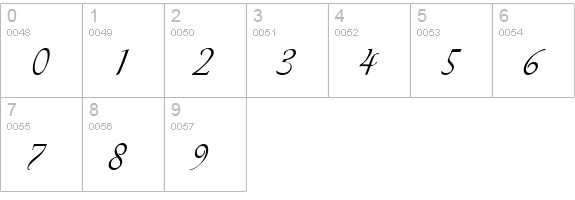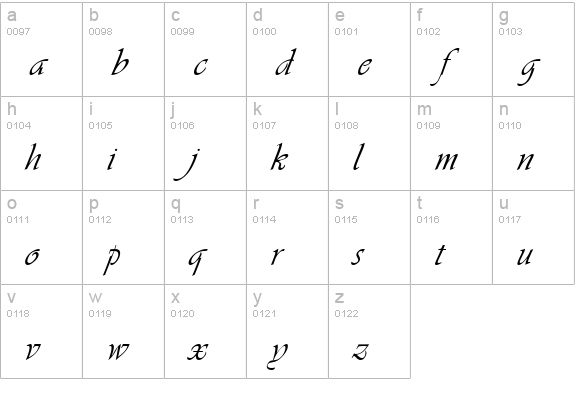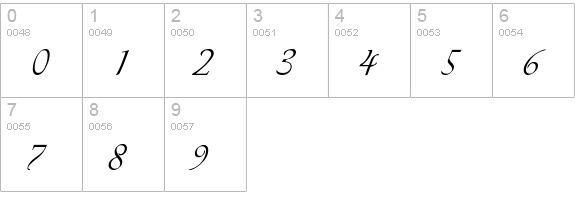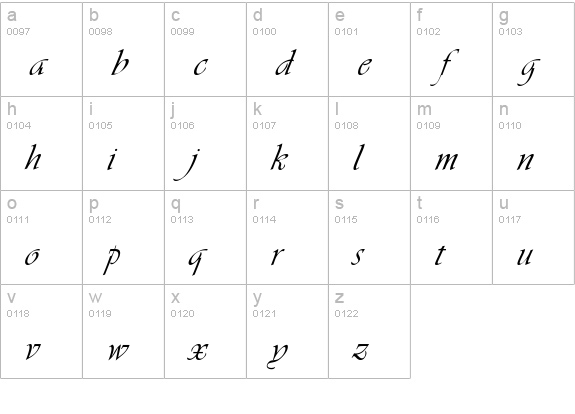
Vivaldi Italic is a distinctive, italic variant in the Vivaldi typeface family \xE2\x80\x94 well suited to design and typography projects.
Vivaldi Italic font is a masterpiece that effortlessly combines elegance and sophistication. With its graceful and flowing curves, this font exudes a sense of refinement and beauty. Whether used for headings, invitations, or any other design project, Vivaldi Italic adds a touch of class and uniqueness. One of the best things about Vivaldi Italic is that it is available for free. Yes, you read that right - this stunning font can be downloaded at no cost! It is freely available on FontsMarket.com, a reputable website known for its extensive collection of high-quality fonts. By offering Vivaldi Italic for free, the creators have made it accessible to anyone who wants to add a touch of elegance to their designs. Whether you are a professional designer or a hobbyist, this font is a valuable addition to your font library. The versatility of Vivaldi Italic is another standout feature. It is suitable for a wide range of design projects, from formal invitations to luxury branding. Its italicized style adds a sense of movement and flair, making it perfect for capturing attention and creating a lasting impression. The carefully crafted letterforms of Vivaldi Italic showcase its exquisite details. Each stroke is meticulously designed to create a harmonious balance between the thick and thin lines. The result is a font that is visually stunning and visually pleasing. To sum it up, Vivaldi Italic is a free font that offers a perfect blend of elegance, versatility, and attention to detail. Whether you are designing for print or digital media, this font will elevate your projects to new heights. Don't miss out on the opportunity to download this remarkable font for free at FontsMarket.com.